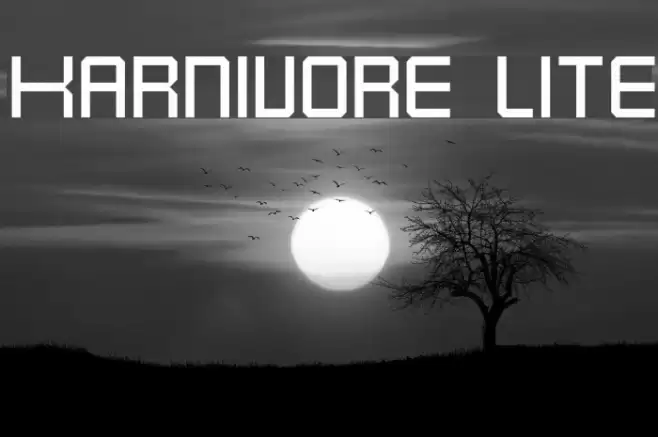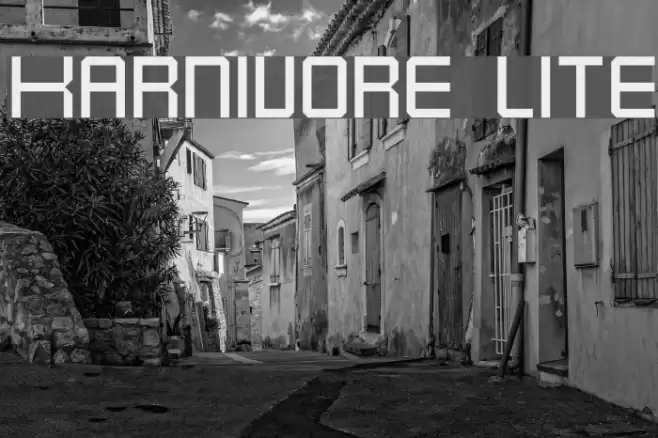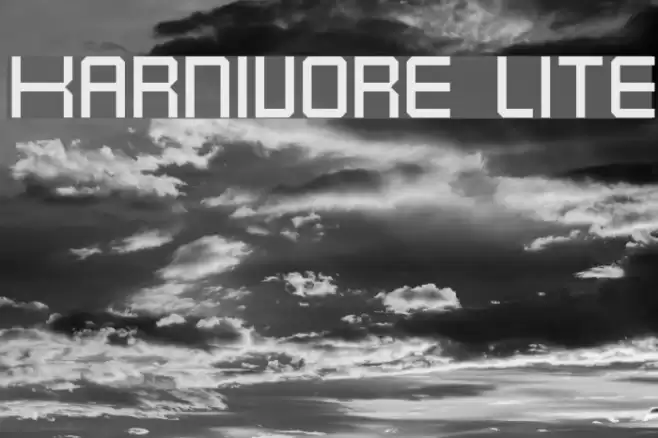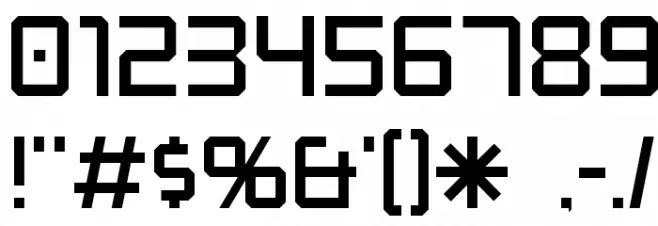
Karnivore Lite Font
Karnivore Lite Description
This font features a bold, geometric design with a strong, industrial feel. The characters are constructed with sharp, angular lines and a consistent stroke width, giving it a modern and robust appearance. The uppercase and lowercase letters maintain a uniform height, enhancing its structured look. The numerals and special characters follow the same design principles, ensuring a cohesive style throughout. This font's design is reminiscent of digital or mechanical typefaces, making it suitable for projects that require a futuristic or technical aesthetic.
A bold, geometric font with a modern, industrial style from Uncategorized fonts.
- Proposed Projects: Ideal for technology branding, video game titles, posters, and any project needing a futuristic or industrial touch.